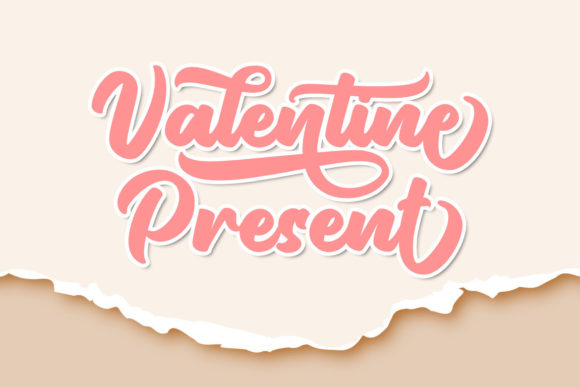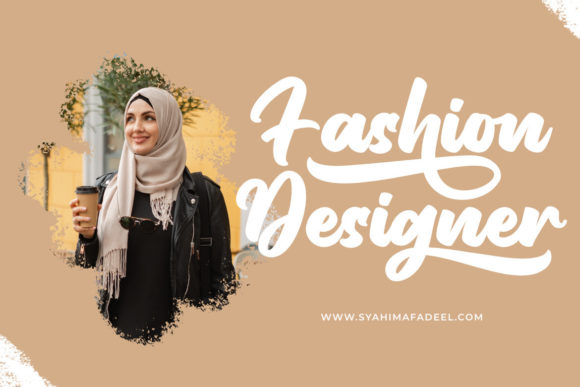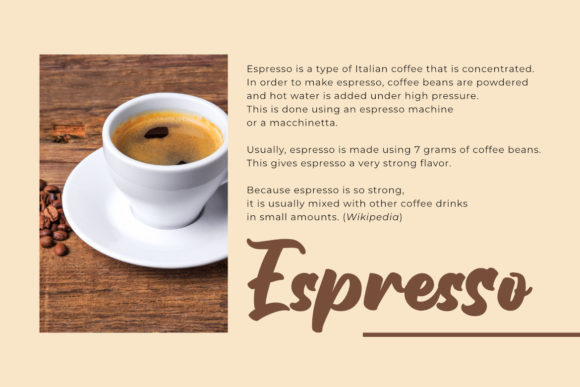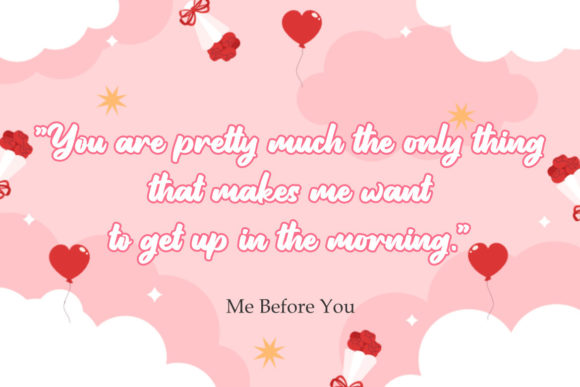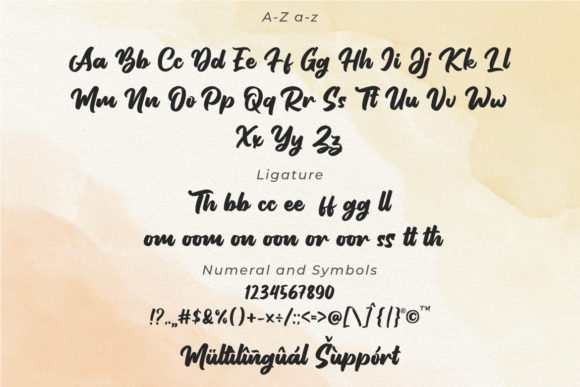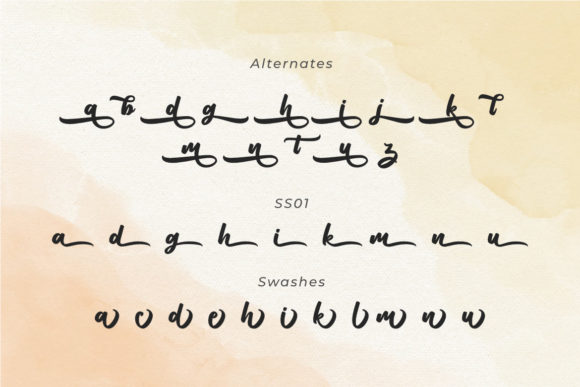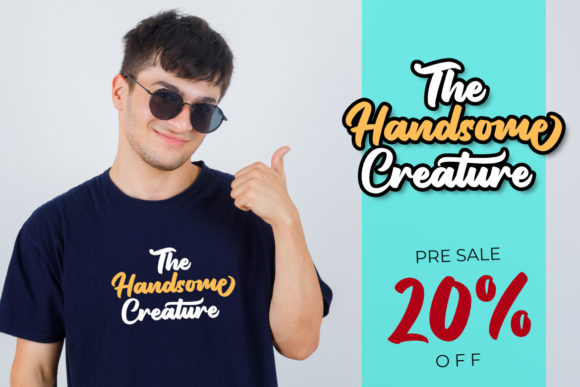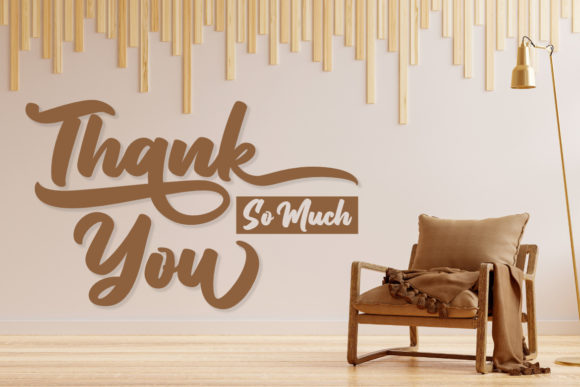
Maulidah Script Font
About Maulidah Script Font
Maulidah Script is an exquisite handwritten font, masterfully designed to become a true favorite. It maintains its classy calligraphic influences while feeling contemporary and fresh. Fall in love with it and bring your projects to the highest levels! This font is PUA encoded, which means you can access all of the glyphs and swashes with ease!